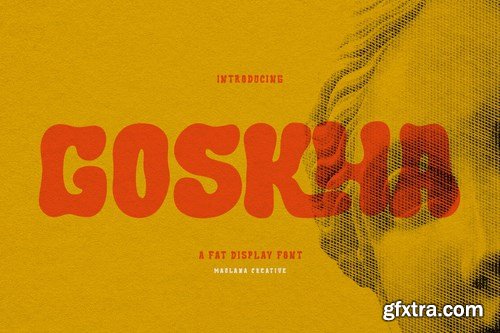
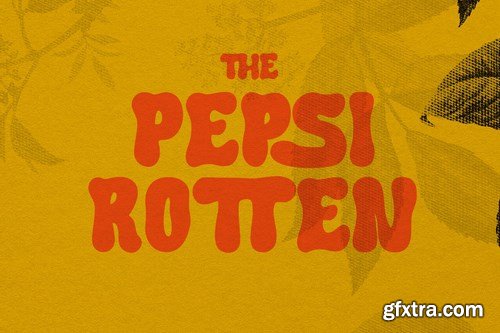
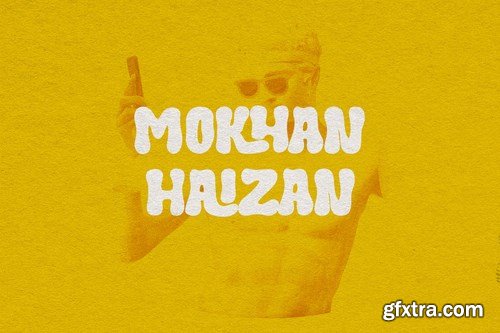
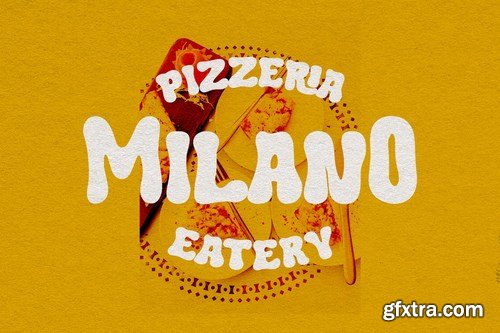
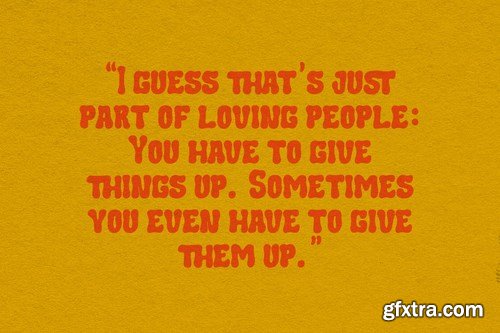
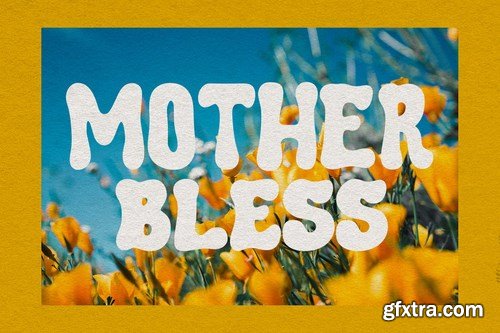
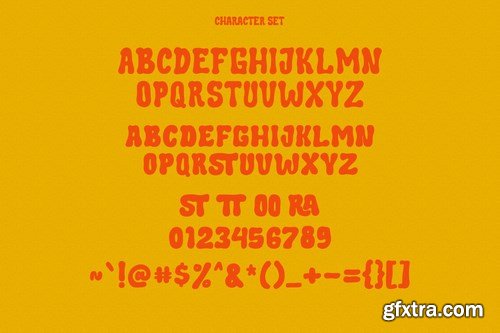
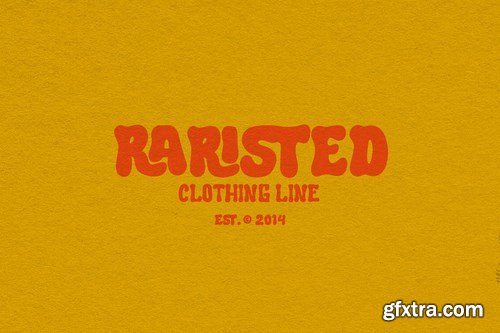
Goskha is a decorative handwritten display font. With bold stroke, fun character with a bit of ligatures. To give you an extra creative work. Goskha font support multilingual more than 100+ language. This font is good for logo design, Social media, Movie Titles, Books Titles, a short text even a long text letter and good for your secondary text font with sans or serif. Make a stunning work with Goskha font.
Soft Aura is a minimalist and simple sans family that have four fonts in total. You will get the regular, italic, bold, and bold italic in the package. You can use this font for any purpose, suitable for contrast logotype and branding. Combine the style fonts, italic and bold in one word to get stylish contrast look. This font also support multi language.
Here are Modern Sans created with a bit of playfulness and clear grotesque. However, clear visibility and balanced contrast, are the main features of all glyphs. This modern Sans font family is designed to complement each other with balanced stem consistency and resisting Alternates. If you want to meet a grotesque with a different feel, try using these Alternates.
Weighty Step - Western Font
Cowboy hat, spurs, and a lasso. Weighty Step will bring the wilderness of the desert and roughness of the wild west world. It comes in cartoon slab serif style; it sure will click and bang on your current and upcoming project.